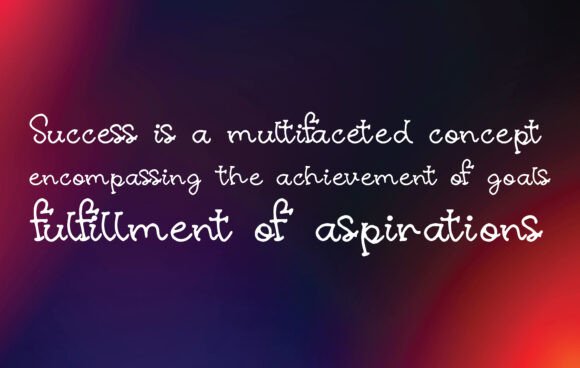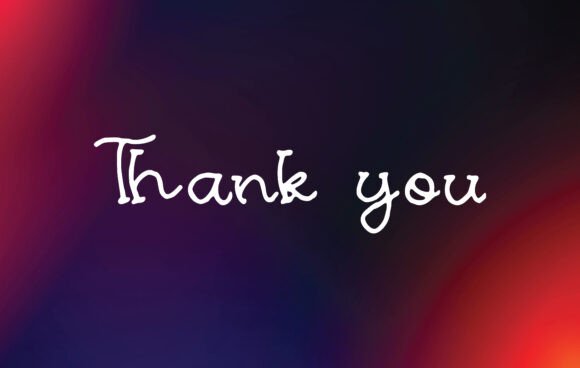
The Daniel Font: A Creative Game-Changer for Designers and Crafters
I’ll never forget the moment I stumbled upon the Daniel font while working on a branding project for a small business. I had been searching for the perfect handwritten font to capture the essence of their eco-friendly products, but everything I tried seemed either too bland or too over-the-top. That’s when I discovered Daniel – a lovely and beautiful handwritten font that instantly elevated my design game.
An Honest Review of Daniel Font
As a designer, I’m always on the lookout for fonts that can help me create stunning visuals with ease. Here’s what I love about Daniel:
- ✨ Unique and eye-catching: Daniel has a distinct, hand-crafted feel that sets it apart from more generic fonts.
- ✅ Highly versatile: This font can be used for a wide range of projects, from logos and branding to quotes and social media graphics.
- 💫 Easy to read: Despite its creative flair, Daniel remains surprisingly legible, even at smaller font sizes.
Of course, no font is perfect, and Daniel has a few minor quirks:
- 🤔 Limited availability of certain characters: While Daniel has a wide range of glyphs, some users may find that certain special characters are missing.
- ⚠️ May not be suitable for very formal projects: Daniel’s playful, handwritten nature makes it better suited for creative and informal projects.
One of the best things about Daniel font is its support for OpenType features and glyphs. Users can access stylistic alternates, ligatures, and other advanced typographic features to add more personality to their designs.
The Story Behind Daniel Font
Daniel font was designed with the goal of creating a beautiful, approachable handwritten font that could be used for a wide range of creative projects. Inspired by the imperfections and uniqueness of handwriting, Daniel’s designer aimed to craft a font that felt both personal and professional.
| Font Name | Daniel Font |
| Author | moonlight craft |
| Does Daniel font support OpenType features? | Yes, Daniel font supports OpenType features, including stylistic alternates, ligatures, and more. |
| Is Daniel font easy to read? | Yes, despite its creative flair, Daniel font remains surprisingly legible, even at smaller font sizes. |